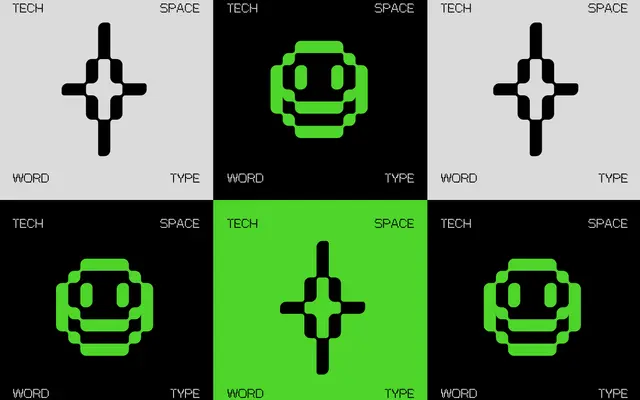
Pexel Grotesk
A pixel-grid typeface that maps grotesque proportions onto a strict pixel grid, with rounded edges that set it apart from typical bitmap fonts.
Built on a strict pixel grid, Pexel Grotesk takes the proportions and structure of traditional grotesque typefaces and renders them in pixel art form. Rounded edges distinguish it from the hard corners typical of the genre, lending it a softer character suited to both retro-themed work and contemporary digital contexts. The glyph set runs to 236 characters, covering uppercase, lowercase, diacritics, punctuation, arrows and seven custom symbols.
Pexel Grotesk is a pixel-grid display typeface that deliberately recreates grotesque proportions within bitmap constraints, placing it firmly in the display category with a pixel/bitmap subcategory rather than a conventional grotesque.